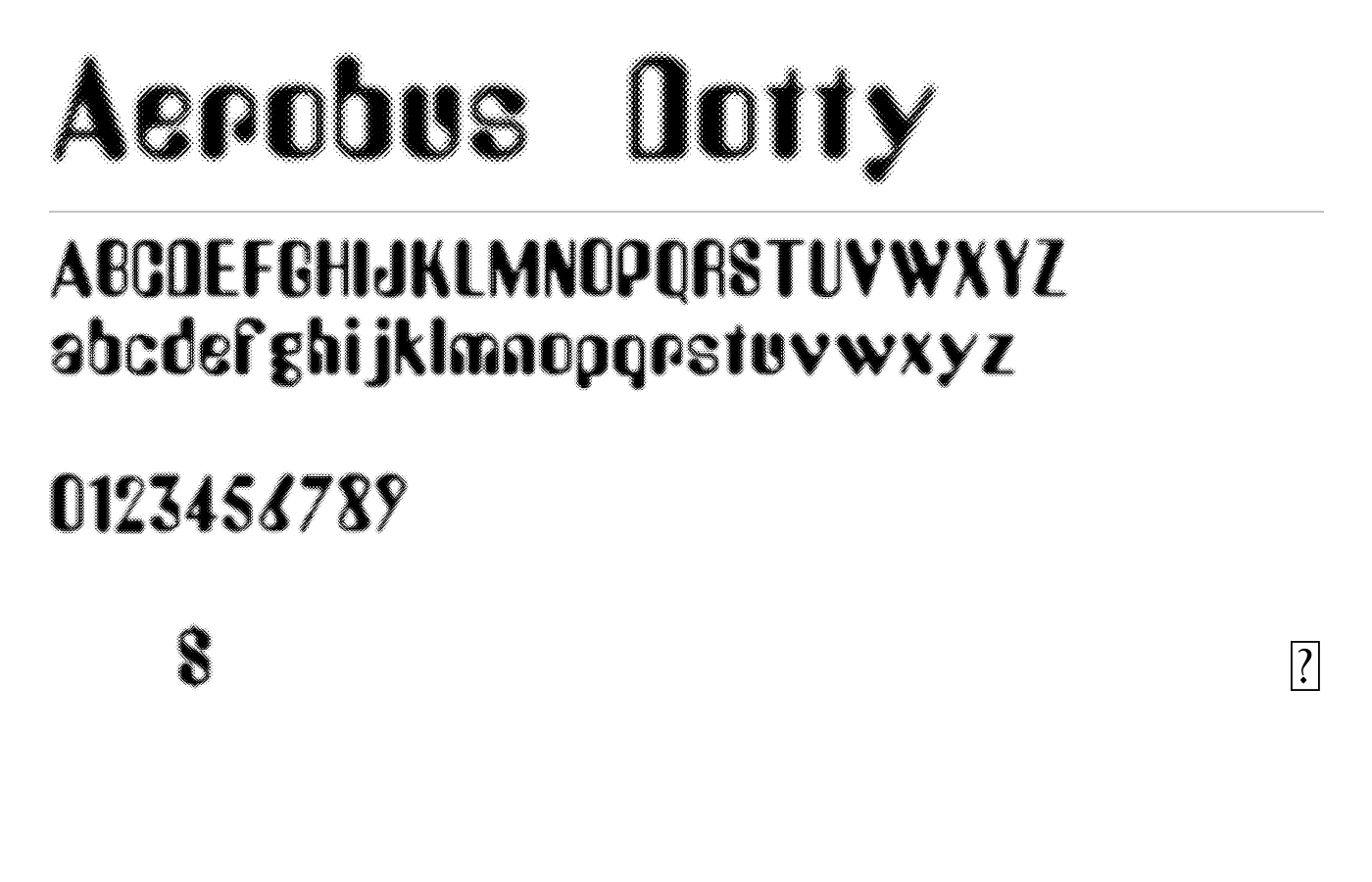
Aerobus Dotty is a unique sans serif typeface characterized by its dotted texture creating a playful yet structured look with medium weight and a narrow, condensed width. Its quirky letterforms feature a slightly geometric style with single-story ‘a’ and ‘g’, giving it a modern, informal vibe suited for creative and attention-grabbing designs. This font works well for logos, headlines, and posters where a fun and distinctive personality is desired.
Aerobus Dotty Font
About Aerobus Dotty Font